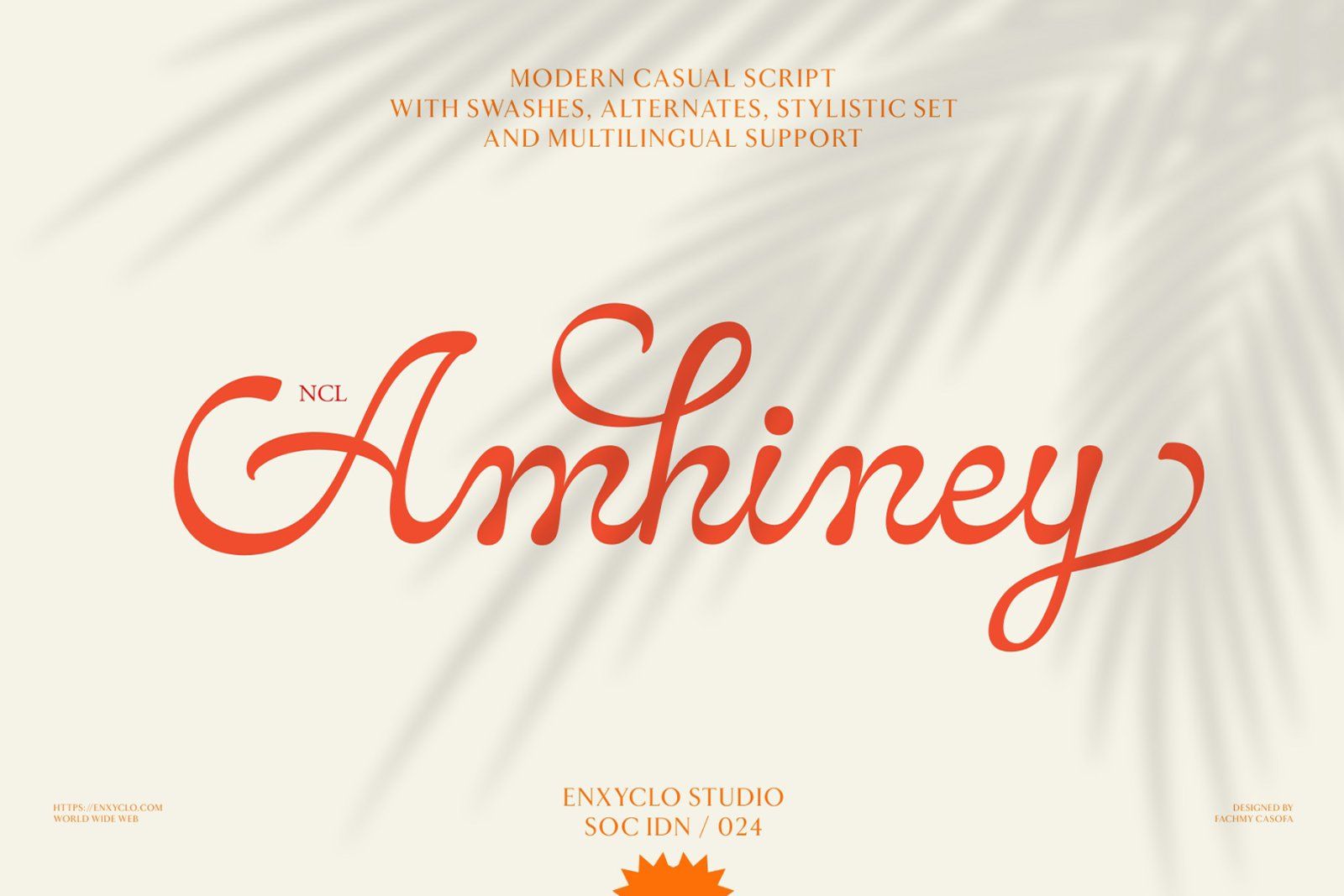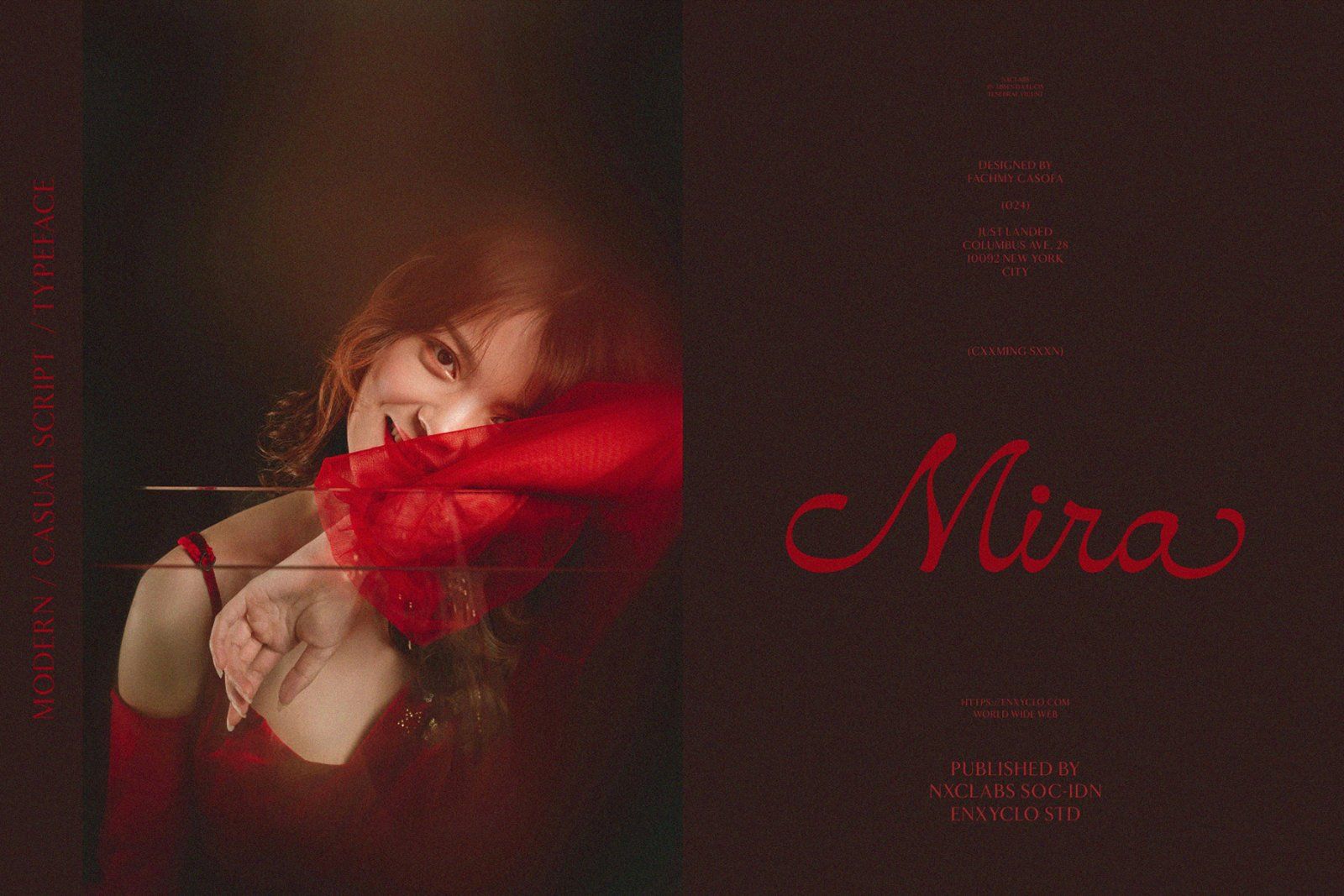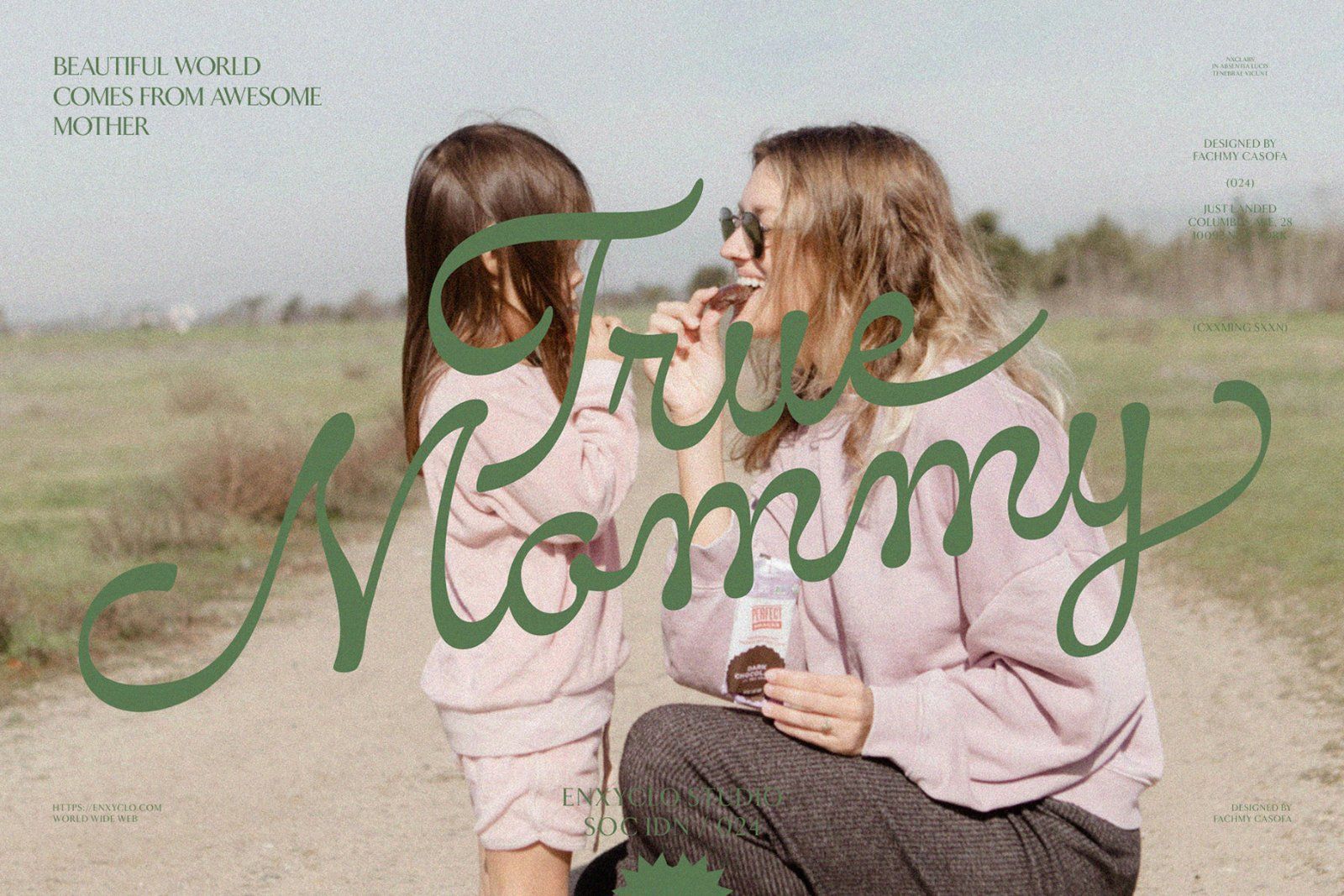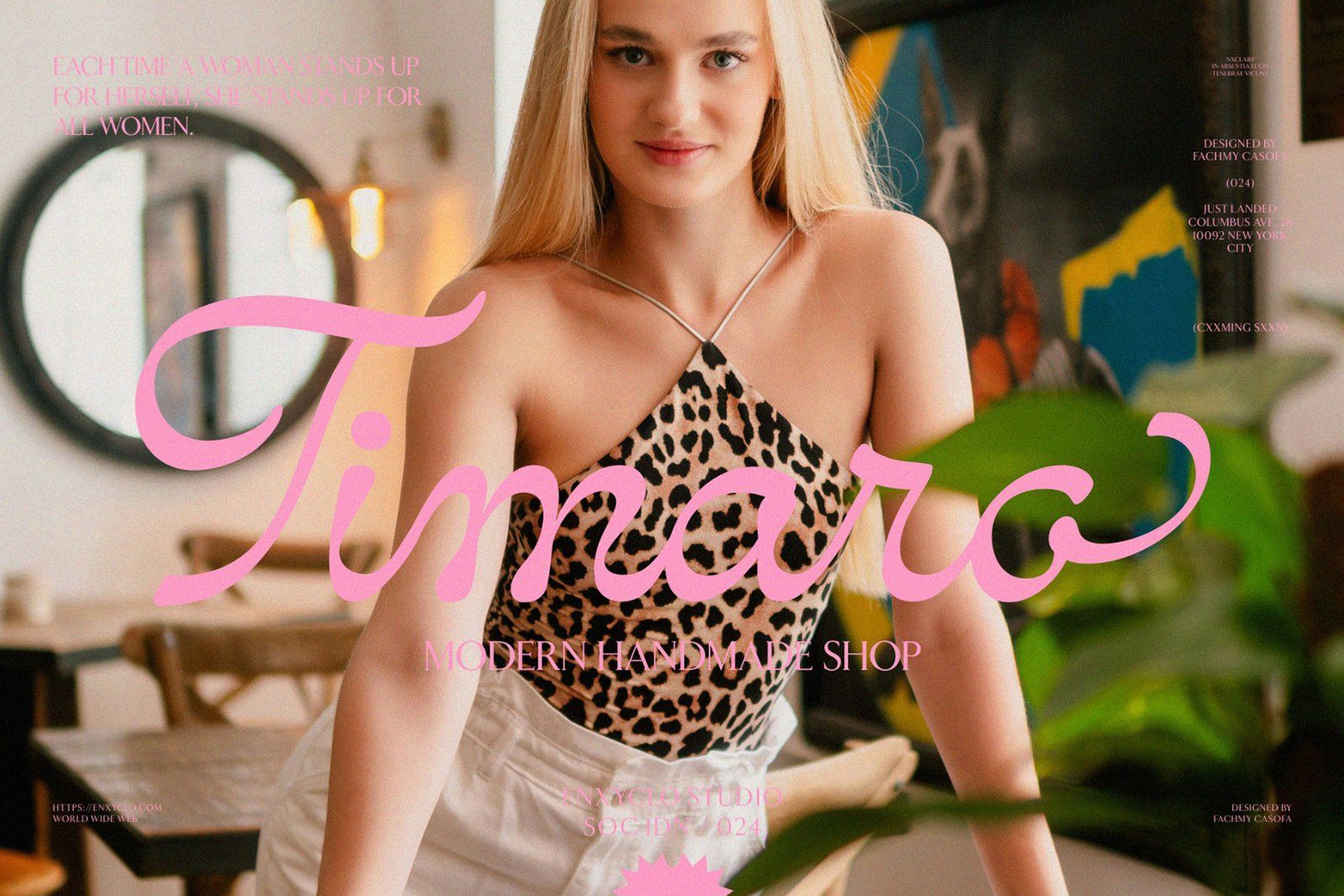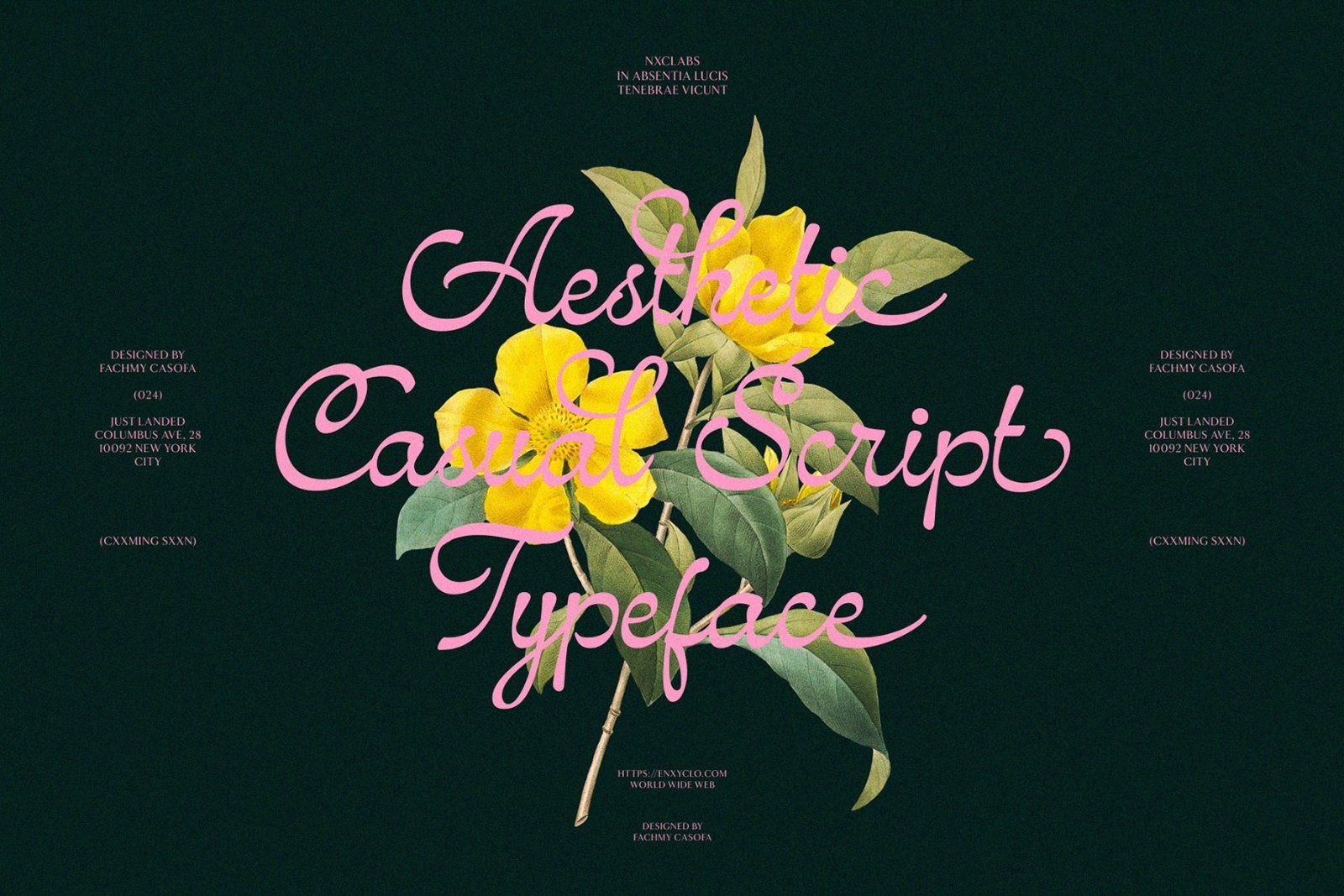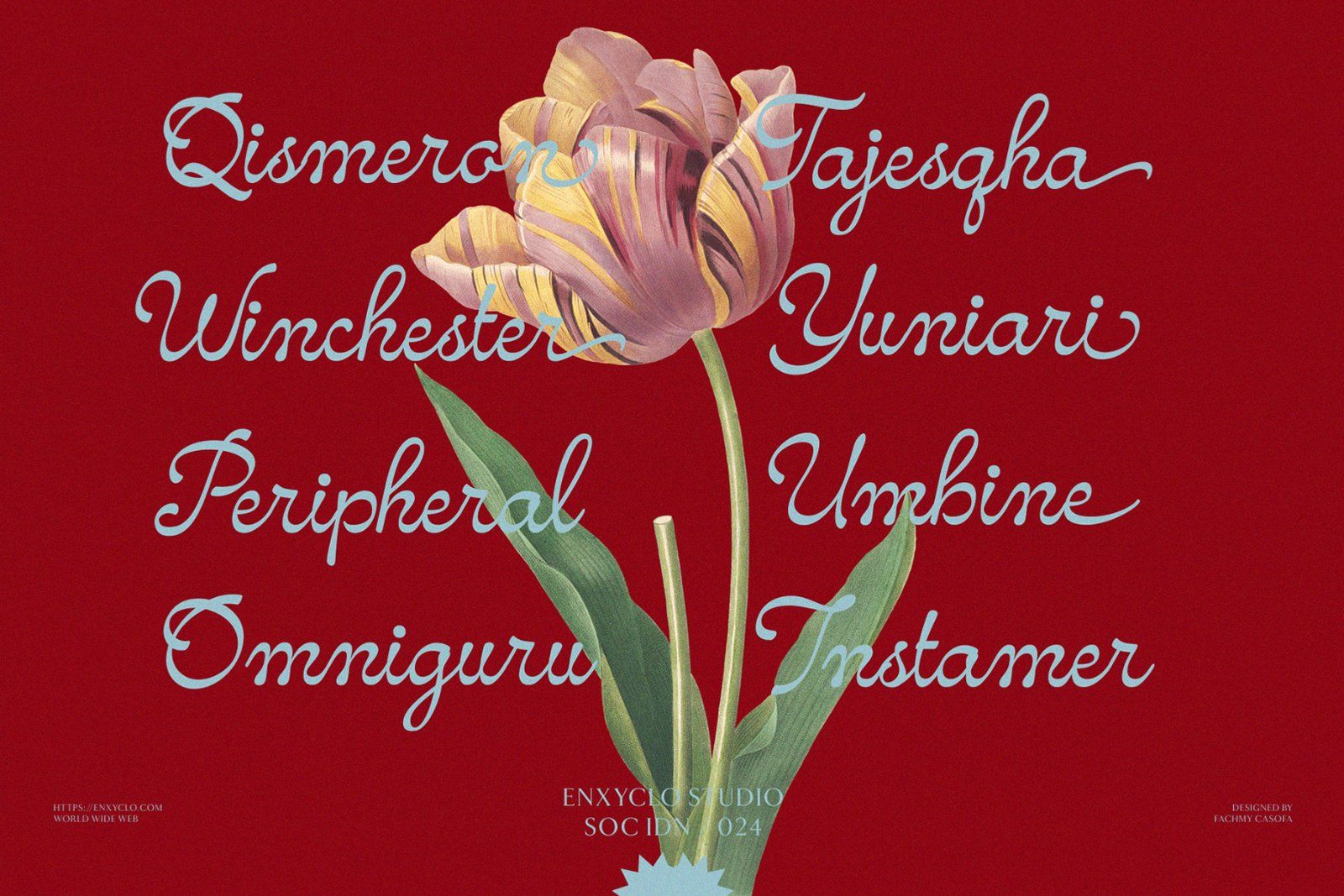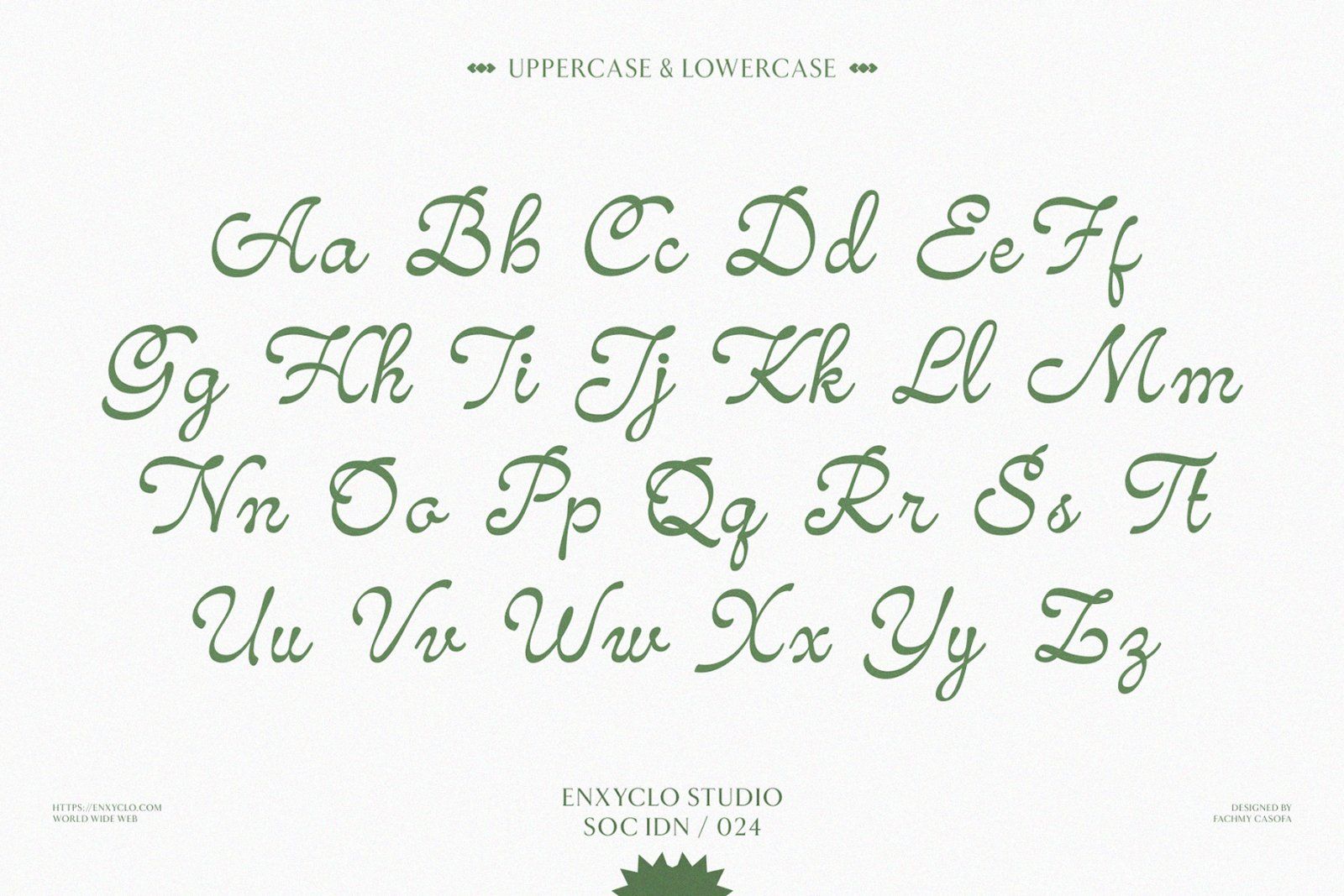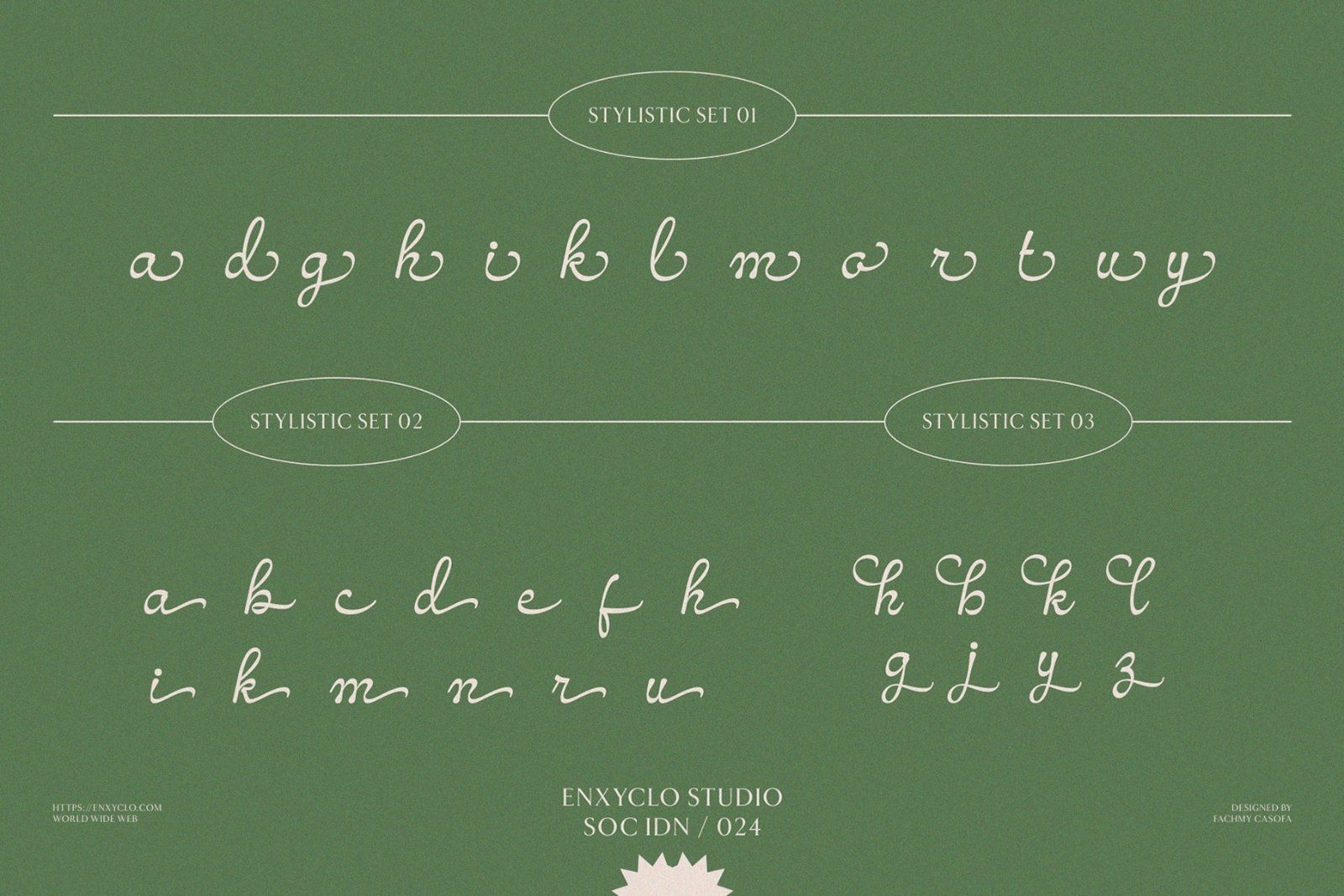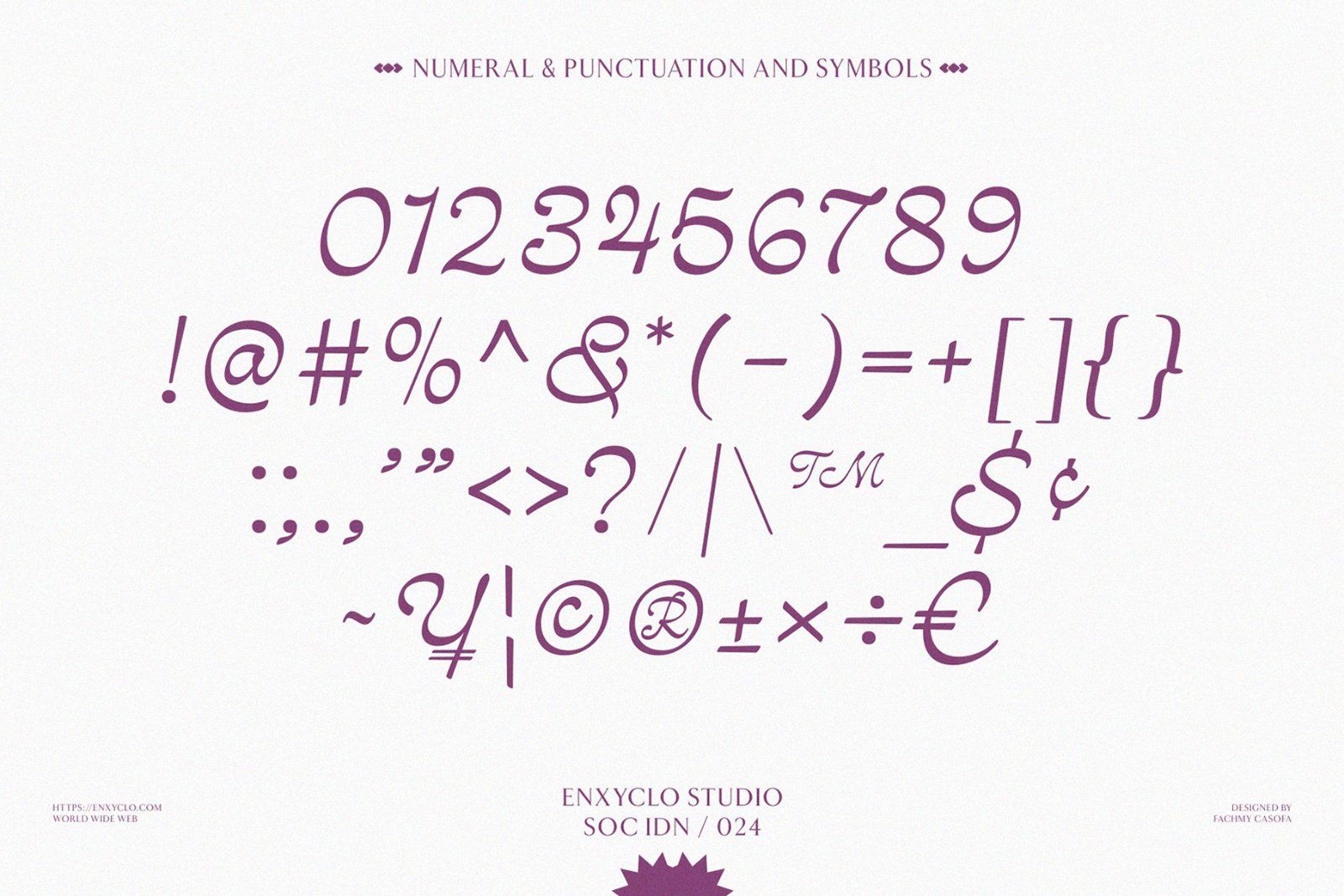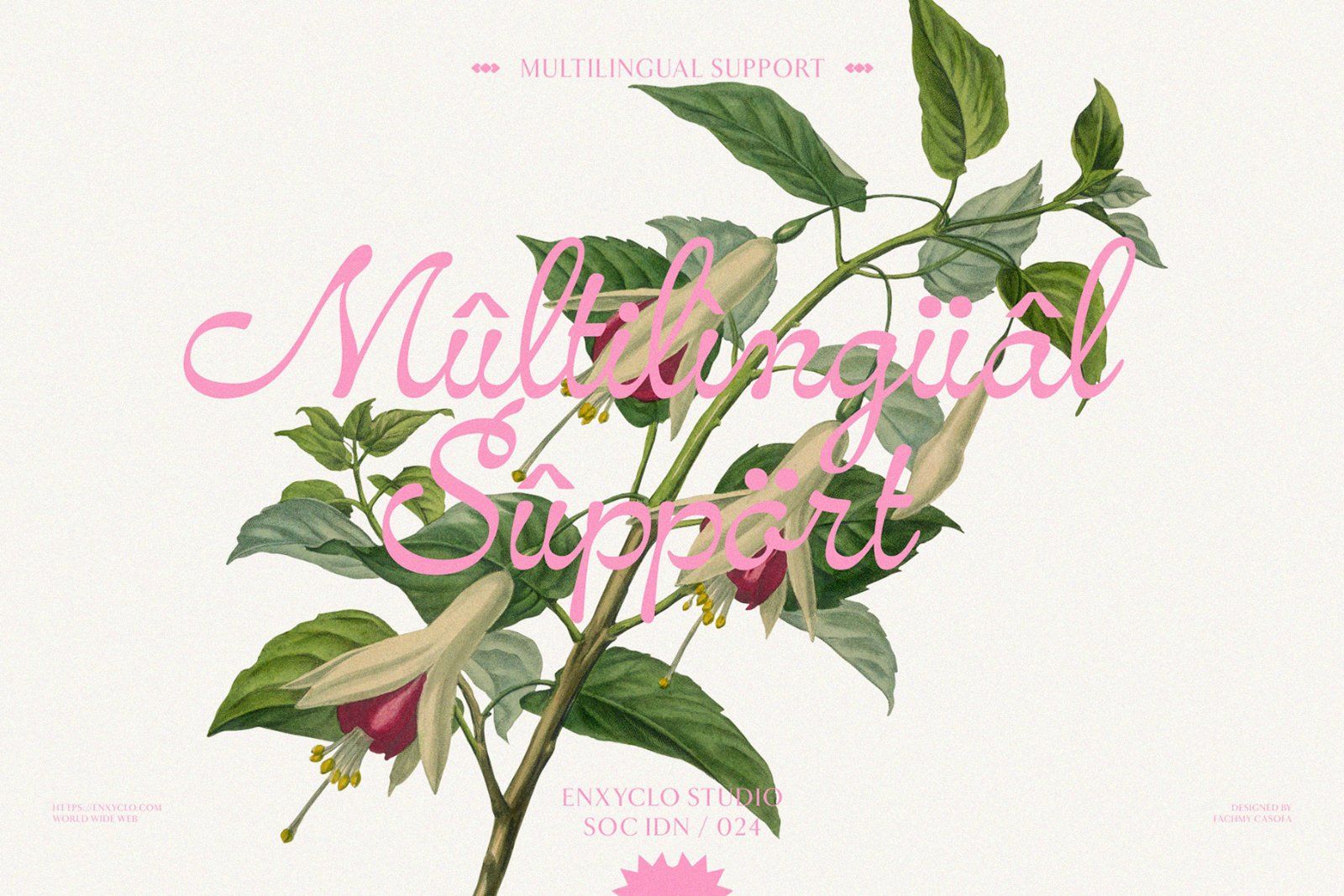
NCL AMHINEY is a timeless modern luxury script font designed to express beauty, sophistication, and refined elegance. With graceful curves and flowing strokes, this typeface captures the essence of luxury and glamour, creating a visual experience that feels rich, lavish, and effortlessly premium. Every letter is crafted with delicate precision to deliver a harmonious balance between elegance and contemporary style. Created for brands that value aesthetics and exclusivity, NCL AMHINEY transforms typography into a statement of identity. Its elegant script form brings warmth and refinement to every composition, making it ideal for logo design, fashion branding, and luxurious visual storytelling. The smooth rhythm of its letterforms creates a sophisticated presence that feels timeless while maintaining a fresh modern appeal.
Inspired by the world of fashion, beauty, cosmetics, skincare, and boutique branding, AMHINEY enhances designs with a rich and polished aesthetic. Whether applied to premium packaging, stylish editorial layouts, or glamorous campaigns, this font creates a luxurious atmosphere that instantly elevates the value and perception of your brand. More than just a script font, NCL AMHINEY is a visual signature of modern elegance—crafted for designers and creative brands seeking premium quality, aesthetic beauty, and unforgettable brand experiences.
FEATURE
• 279 Unique Glyphs
• Stylistic Set 1-3
• Numeral, Punctuation & Symbols